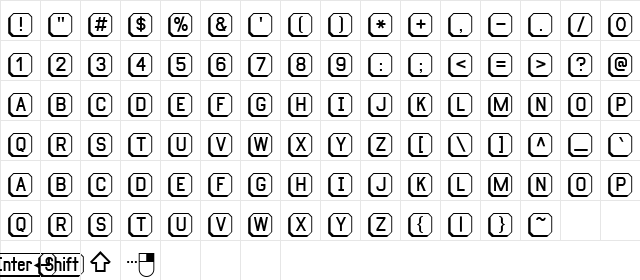
Ratsample PC 3D Regular
Design Context for Ratsample PC 3D Typeface
Ratsample PC 3D offers clean, dependable letterforms without strong stylistic allegiance, making it a practical choice for designers who need flexibility.